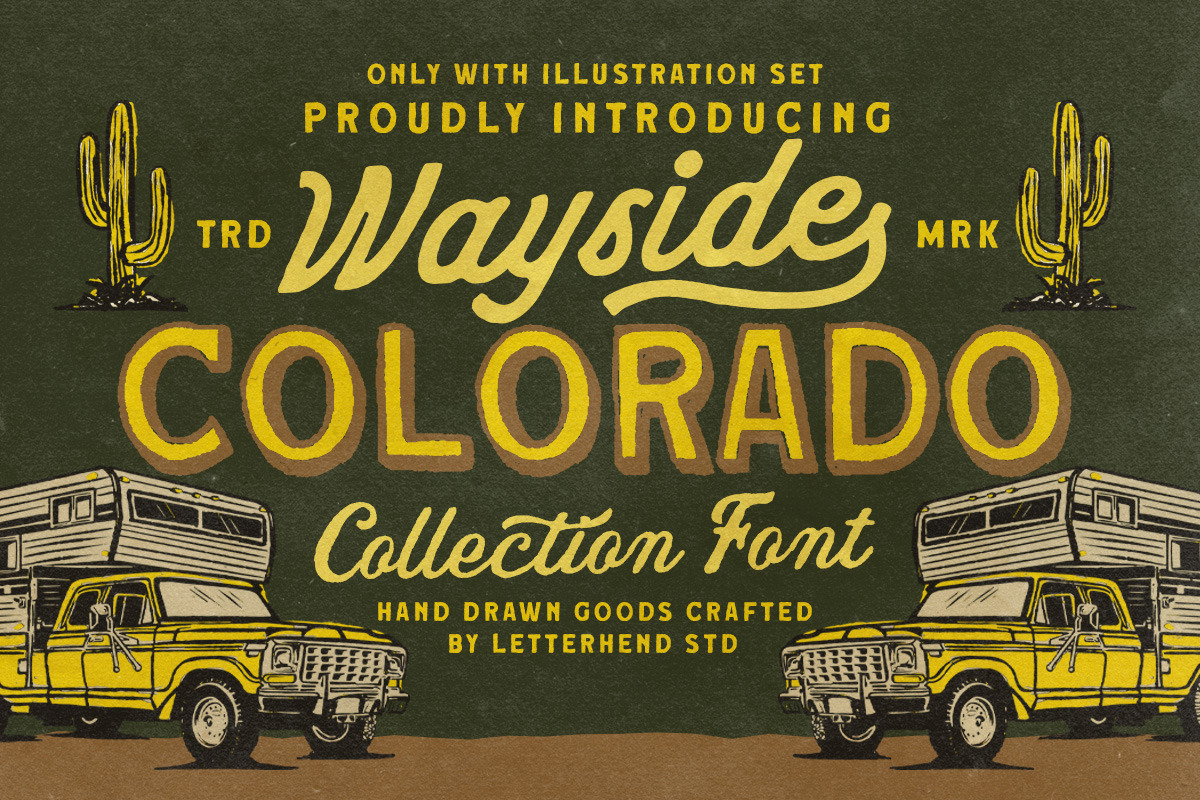
Wayside Colorado Font Collection
Wayside Colorado Collection channels nostalgic Americana with handcrafted letterforms that evoke sun-faded highway signage, roadside diners, and classic western posters. The font’s rough strokes and subtly distressed edges deliver warmth and authenticity, helping your designs feel lived-in rather than manufactured. Use it to anchor identity systems, headlines, and packaging where personality and story matter. The collection actively communicates a handcrafted aesthetic, making it instantly suitable for cafes, outdoor brands, apparel, event promotion, and heritage-inspired product lines.
Included Styles, Features, And Technical Specifications
Wayside Colorado Collection ships as a multi-style family built to cover diverse creative needs. The package empowers designers with alternate forms, display treatments, and illustrative assets that expand creative flexibility.
• Handdrawn Sans: Regular, Fill Outline, and Extrude variations that create bold, layered display effects.
• Classic Script: A flowing script that complements the sans styles for logotypes, badges, and taglines.
• Monoline Script: A clean, restrained script option for secondary text and labels.
• Outdoor Trip Illustrations: Ready-to-use small illustrations and decorative elements to pair with type for posters and merch.
• Complete Character Set: Uppercase and lowercase letters, numerals, and full punctuation for flexible typesetting.
• Alternate Characters: Multiple alternates for key letters to customize word shapes and avoid repetition.
• Multilingual Support: Extended Latin character coverage to support Western and Central European languages.
How To Use The Typeface Effectively In Projects
Deploy Wayside Colorado Collection as a primary headline or logotype font where it can dominate the visual hierarchy. Pair the bold Handdrawn Sans with a neutral sans-serif or a light serif for body copy to preserve legibility. Use the Classic Script for accents—signatures, submarks, or taglines—and the Monoline Script for clean information like addresses or dates. Combine the Fill Outline and Extrude styles to create layered, tactile headlines for posters or apparel prints. When using alternates and illustrations, test different combinations to find the most evocative composition for your brand voice.
Design Pairing Suggestions And Production Tips
For digital and web use, reserve high-impact display styles for hero banners and page headers. Optimize web performance by subsetting webfonts to the glyphs you need and choosing WOFF2 for modern browsers. For print, test the font on textured papers and recycled stocks to amplify its retro, weathered character. Use spot checks in small runs to confirm the extrude and outline styles reproduce cleanly at various angles and sizes. When preparing production files, ensure alternates accessed via PUA are converted to outlines if required by the print vendor.
Language Coverage And Accessibility Considerations
Wayside Colorado Collection supports a broad Latin character set so you can localize campaign copy across Western and Central European languages. The multilingual glyphs and PUA-encoded alternates ensure diacritics and unique letterforms remain visually consistent with the font’s handcrafted aesthetic. For accessibility, maintain strong contrast between text and background and avoid using heavily distressed styles for small body copy—reserve them for display use.
Why Choose Wayside Colorado Collection For Your Next Project
Wayside Colorado Collection actively infuses designs with nostalgia and authenticity. Its combination of handdrawn sans styles, complementary scripts, and illustrative elements gives designers a cohesive toolkit to build retro-inspired identities. Choose this collection when you want branding that feels familiar, adventurous, and timeless—perfect for vintage cafés, outdoor adventure brands, apparel lines, themed events, and any creative project that benefits from handcrafted character and lasting charm.